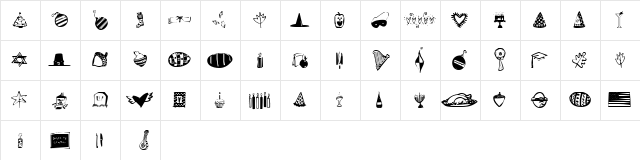
Holiday Dingdoodles Regular
Design Context for Holiday Dingdoodles Typeface
Holiday Dingdoodles is a composed and adaptable typeface that performs quietly and consistently across a wide range of design contexts.